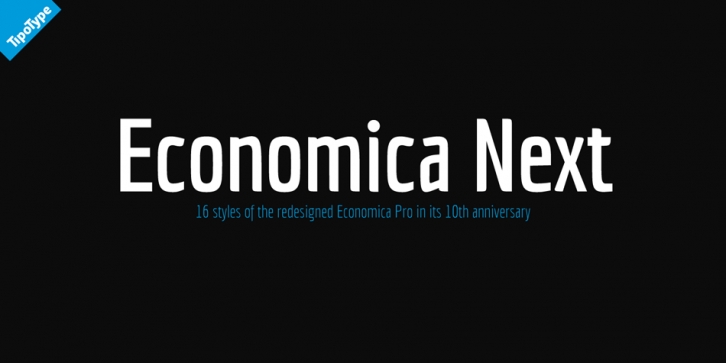
Publisher: TipoType
Designed by Vicente Lamónaca and José Perdomo, Economica Next is a sans serif font family. This typeface has sixteen styles and was published by TipoType.
Economica Next is a redesign and expansion of the classic Economica typeface celebrating its tenth anniversary. This new version has a wider range of weights and was adapted to work in new digital environments. It was carefully designed to save space without loosing its legibility, it is used in several publications around the world and many important websites. It includes sixteen weights and a comprehensive set of characters that allows you to write in several languages. Economica Next is a typeface especially developed for web and app design in complex situations. It has been tested successfully for use in small sizes improving legibility. It is an ideal font for menus, tables, charts, etc.